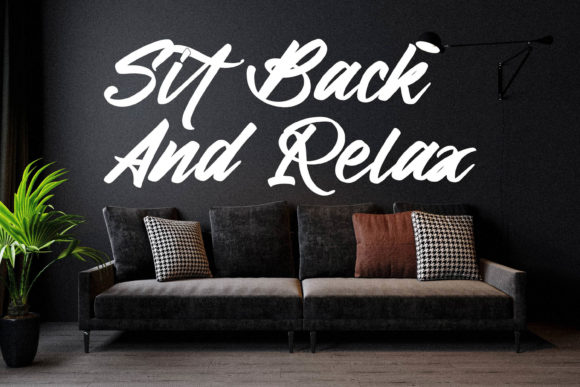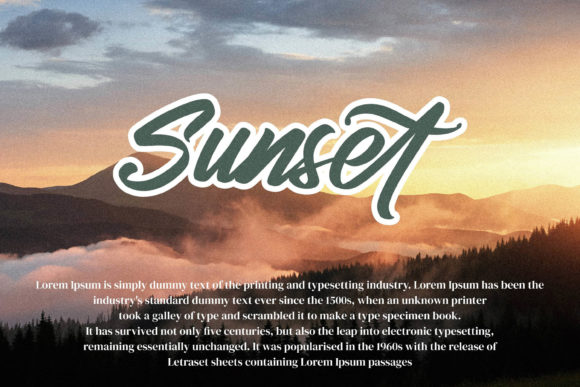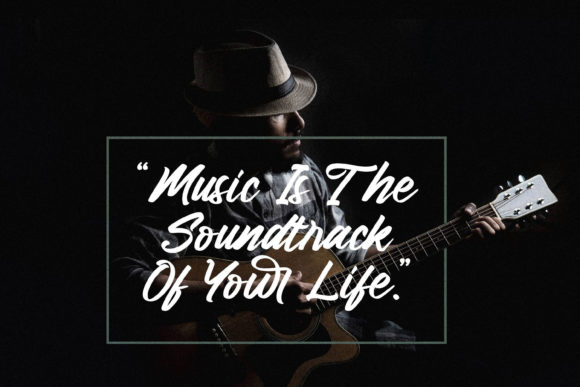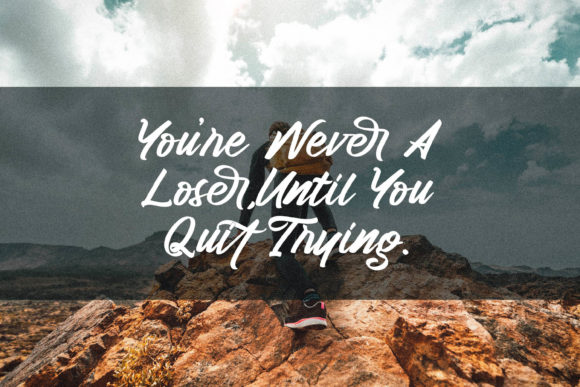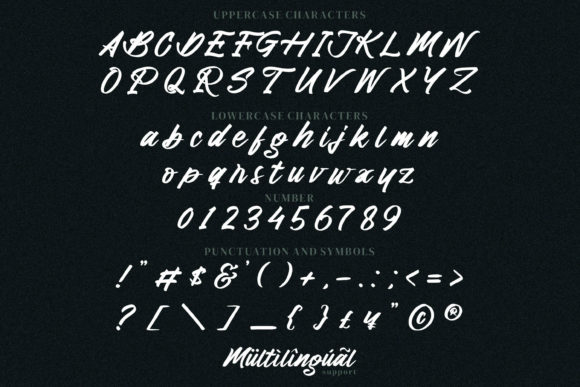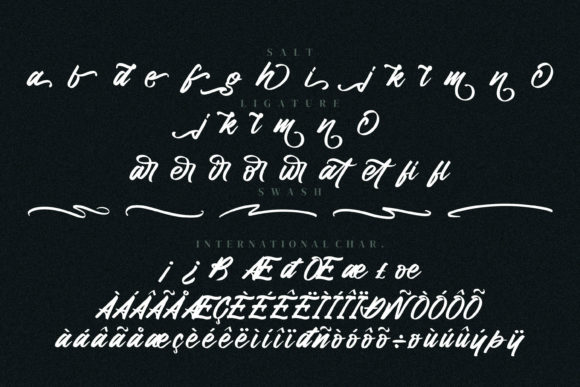
Introduction to Rock Degun Font
Have you ever found yourself in a creative flow, typing away on your computer, and suddenly, you just can’t quite convey the feeling you want to express? That’s when you need a trusty design resource like the Rock Degun Font to give your project that extra oomph! This cool, cursive, and trendy handwritten font is just what you need to elevate your creative project to the next level.
As a designer, you know how important it is to have high-quality fonts that can add a touch of personality to your work. And let’s be honest, who doesn’t love a font that’s free to download and can be easily customized with a transparent background? With the Rock Degun Font, you’ll be able to access all of its glyphs and swashes with ease, making it the perfect addition to any design project.
Key Features of Rock Degun Font
- High-quality font suitable for creative projects, providing a unique design resource.
- Designed with a bold and edgy style, perfect for rock-inspired or heavy metal-themed designs.
Honest Review: Rock Degun Font
I recently came across the Rock Degun Font, a high-quality design resource that caught my attention. As a designer, I’m always on the lookout for unique and creative project elements to enhance my work.
What works well with the Rock Degun Font is its versatility. It’s perfect for creating bold and edgy designs, and the transparent background makes it easy to layer with other elements. The font is also free to download, which is a definite plus in my book.
- ✨ Unique and creative design
- ✨ High-quality font
- ✨ Transparent background for easy layering
One limitation I noticed is that the font might be a bit too bold for some designs. It’s definitely not suitable for delicate or minimalist projects. Additionally, the font is not as extensive as some other font families, so you might need to supplement it with other fonts to create a cohesive look.
Overall, I’d say the Rock Degun Font is a great addition to any designer’s toolkit. While it has its limitations, it’s a high-quality design resource that can add a lot of personality to your creative projects.
To get the most out of the Rock Degun Font, use it in a creative project where its unique style can shine. You can also use it in combination with other design elements to create a visually appealing design. Additionally, make sure to save your design with a transparent background to ensure that it looks great in any setting.
The Rock Degun Font is perfect for use in logos, business cards, posters, and other design projects where a unique and eye-catching font is needed. You can also use it in social media graphics, presentations, and other visual content to add a touch of creativity and style.